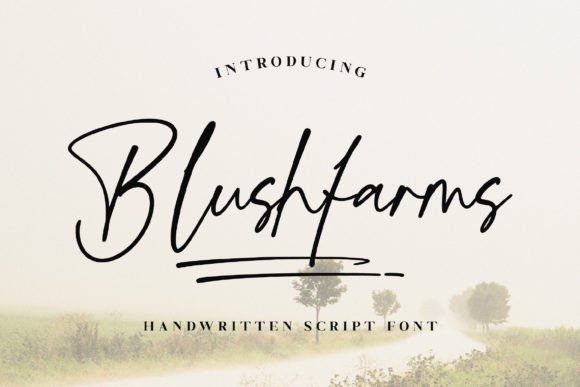
In the realm of digital creation, the art of lettering holds an allure like no other. With the Blushfarms Font, a script font family that embodies elegance and charm, you can now elevate your designs to new heights. Handcrafted with meticulous care by the talented byemalkan, this font is a masterpiece that brings life to your words.
Blushfarms Font: A Timeless Treasure for Exquisite Designs
Step into a world where letters dance with grace, where words come alive with personality. Blushfarms Font is a symphony of curves, a harmonious blend of thick and thin strokes that create a visual delight. Its delicate yet confident presence adds a touch of sophistication to any project, whether it's a heartfelt letter, a captivating social media post, or an eye-catching logo.
Unleash Your Creativity with Limitless Possibilities
With Blushfarms Font, your imagination is the only limit. Let your creativity soar as you explore its versatility and discover endless possibilities. From whimsical wedding invitations to enchanting branding designs, this font flawlessly adapts to any style, adding a touch of magic to your creations.
Designed for Excellence, Crafted for Perfection
Blushfarms Font is meticulously crafted to ensure an exceptional user experience. Its smooth flow and effortless legibility make it a joy to work with. Whether you're a seasoned designer or just starting your creative journey, this font is your perfect companion, guiding you towards stunning results.
A Touch of Charm for Every Occasion
Let Blushfarms Font add a touch of charm to your personal projects. It's the perfect choice for heartfelt letters, heartfelt greetings, or simply adding a personal touch to your digital creations. With its warm and inviting style, this font will make your words resonate with emotion, leaving a lasting impression on your readers.
Elevate Your Designs with the Best Fonts for Letter B
Welcome to the world of typography, where Blushfarms Font reigns supreme as the champion of excellence. As one of the best fonts for letter B, this script font family exudes sophistication and grace. Its unique design ensures that your letter B stands out, making a bold statement that captivates attention.